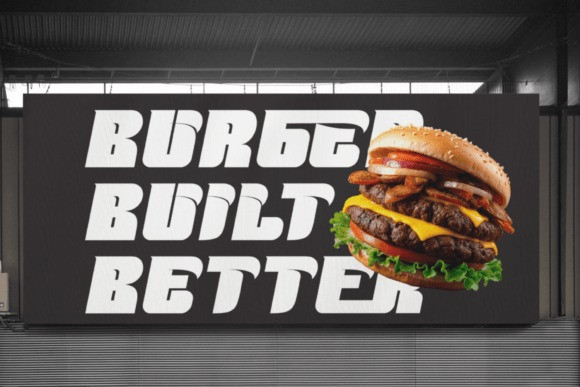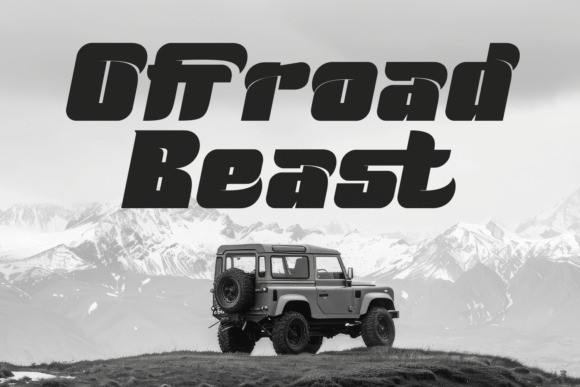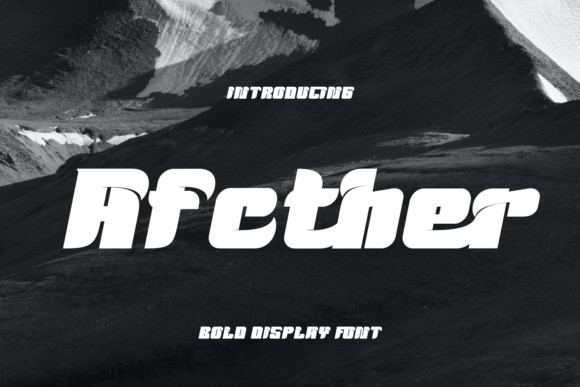
Aftcher Font
Aftcher Font is a bold display typeface that boasts a progressive, audacious aesthetic, specifically engineered to command attention in high-octane fields such as extreme sports, automotive, and adventurous designs. With its rakish cuts and robust curves, this typeface embodies the epitome of masculinity, power, and velocity. It’s exemplary for making a bold statement on poster headlines, invigorating off-road vehicle branding, initiating impact on sportswear labels, spicing up stickers, or infusing a contemporary, fearless flair in any social media content. This is about more than a font; it’s about a style that dares to be different and modern.